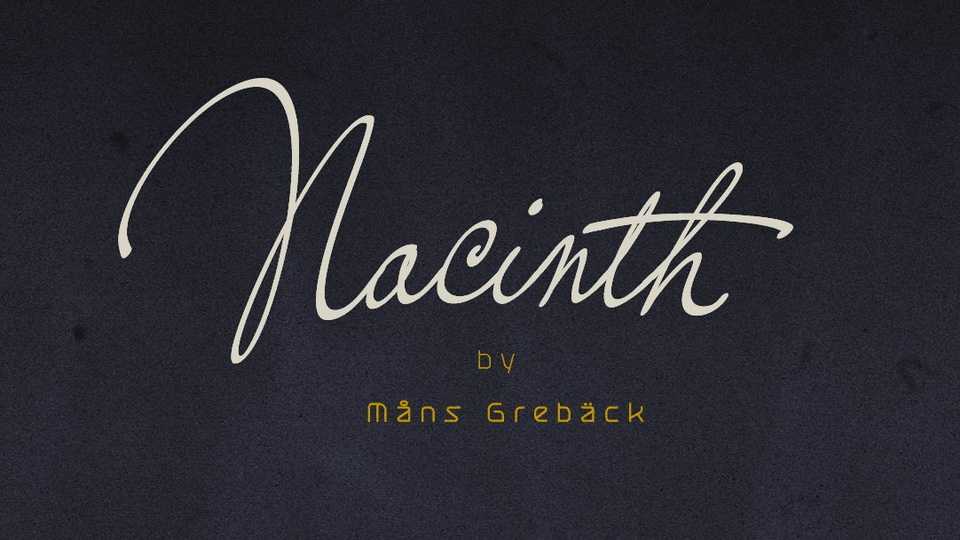
Download Nacinth font, a wild calligraphy script. Nacinth’s open shapes are inspired by mid-century advertising, is full of life and emits liberty and optimism.
Designer: Måns Grebäck